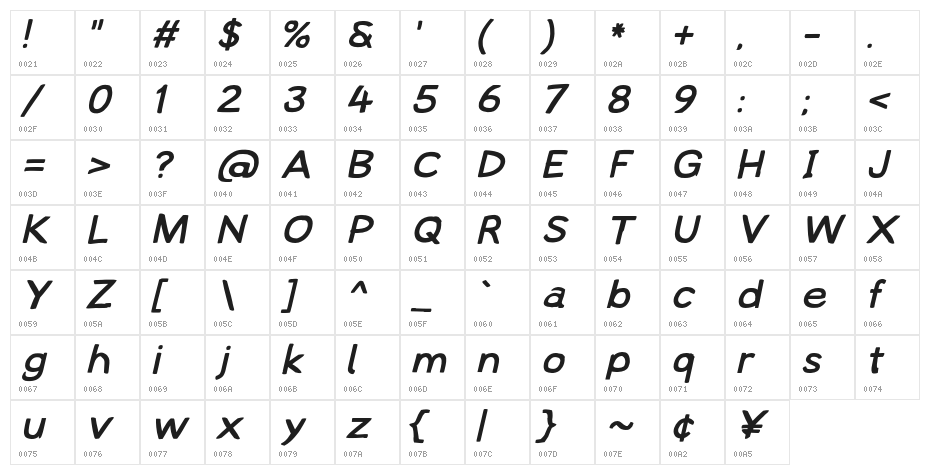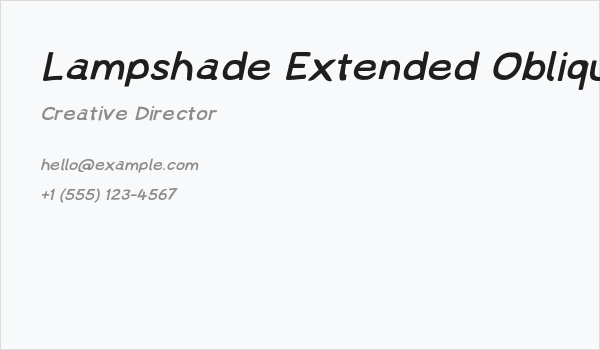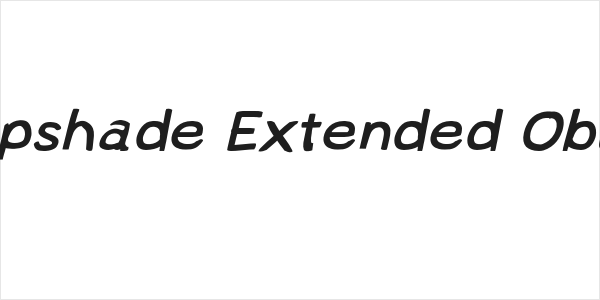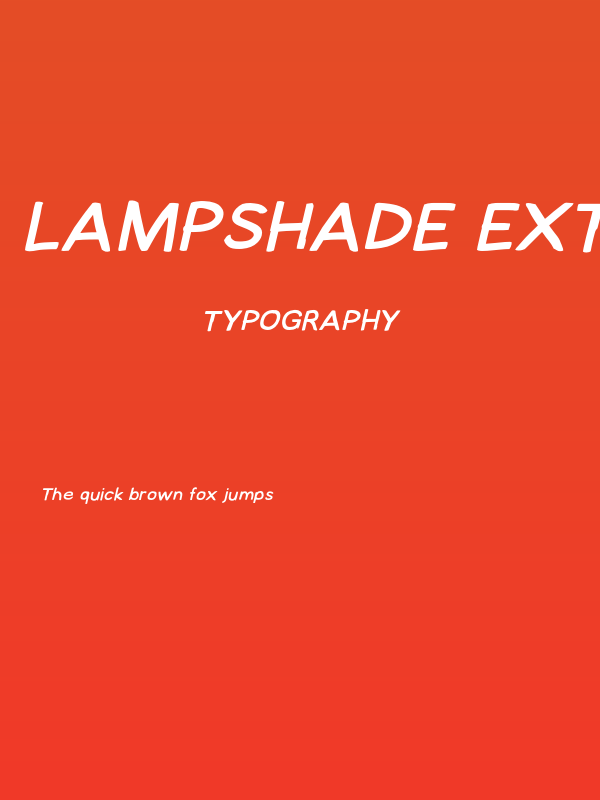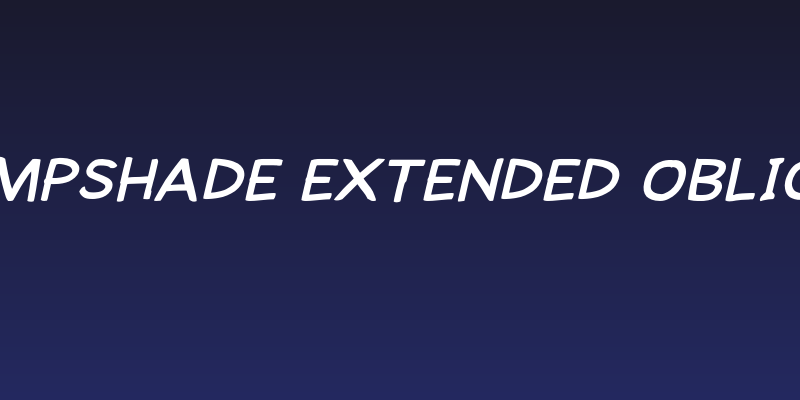
Lampshade Extended Oblique Font
Lampshade Extended Oblique Description
This font features an oblique style with a modern and dynamic appearance. The characters are extended, giving them a stretched look that enhances readability while maintaining a sleek and stylish aesthetic. The uppercase letters are bold and assertive, while the lowercase letters retain a friendly and approachable feel. Numbers and special characters are designed to match the overall slanted and extended theme, ensuring consistency across all text elements. The font's design is versatile, making it suitable for a variety of applications, from branding to digital media.
| Proposed Projects | Ideal for branding, advertising, digital media, and modern design projects. |